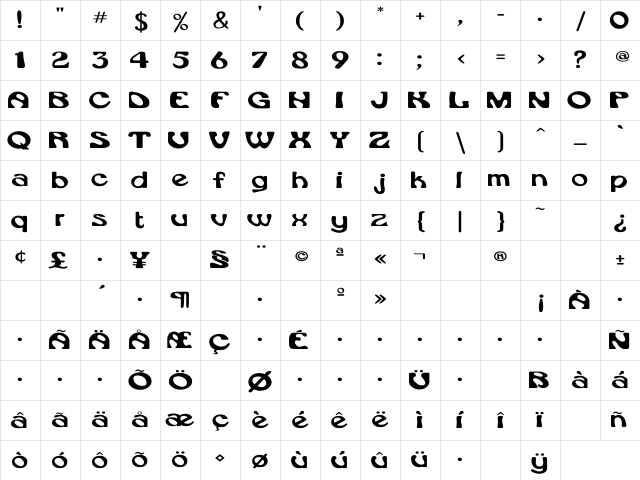
Rsdaytona Wd Regular
Rsdaytona Wd Family
Design Context for Rsdaytona Wd
Rsdaytona Wd is a composed and adaptable typeface that performs quietly and consistently across a wide range of design contexts.